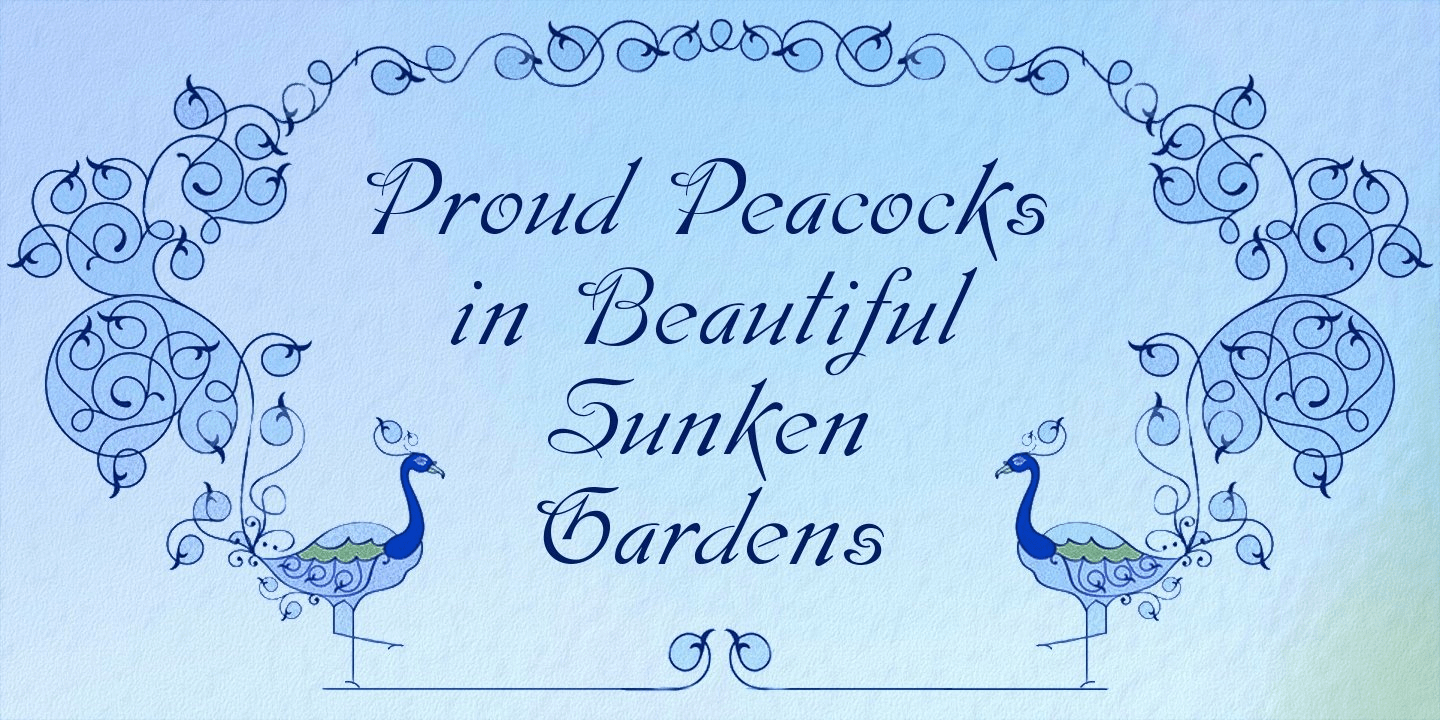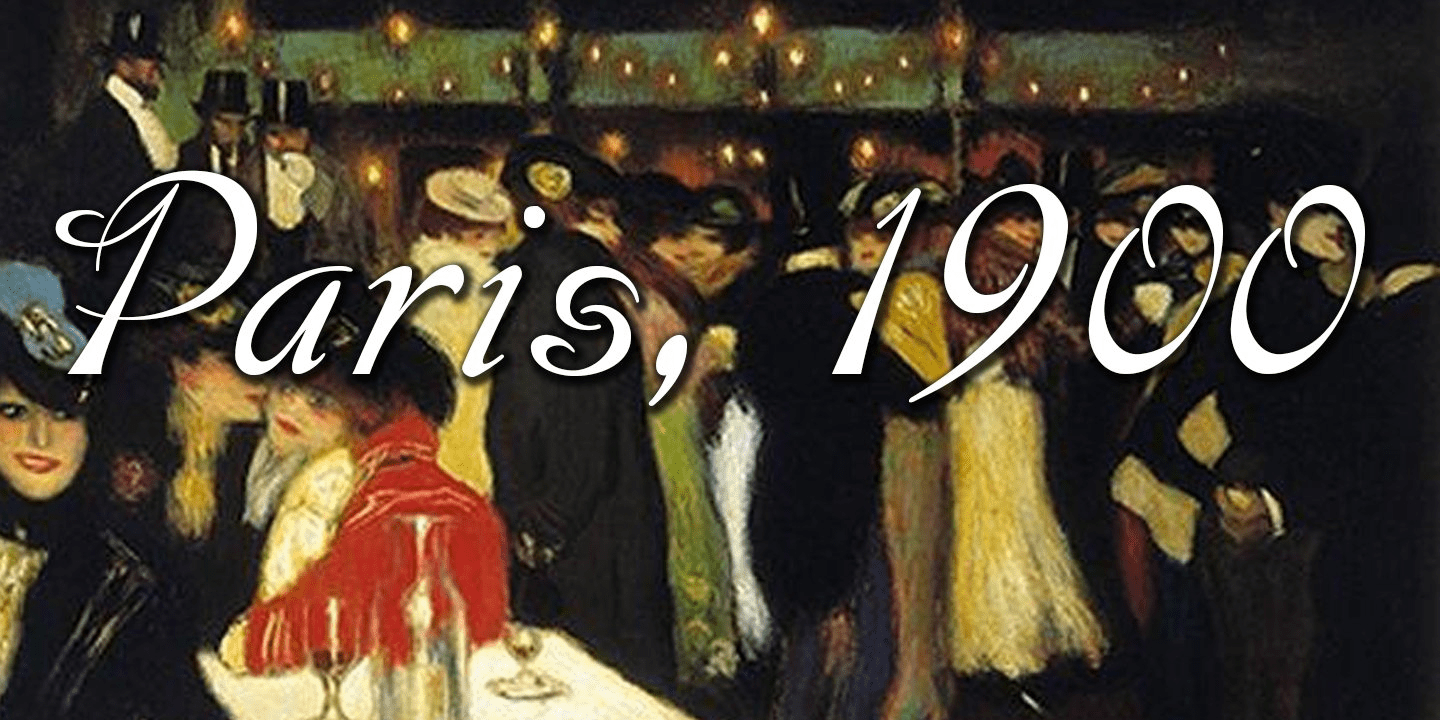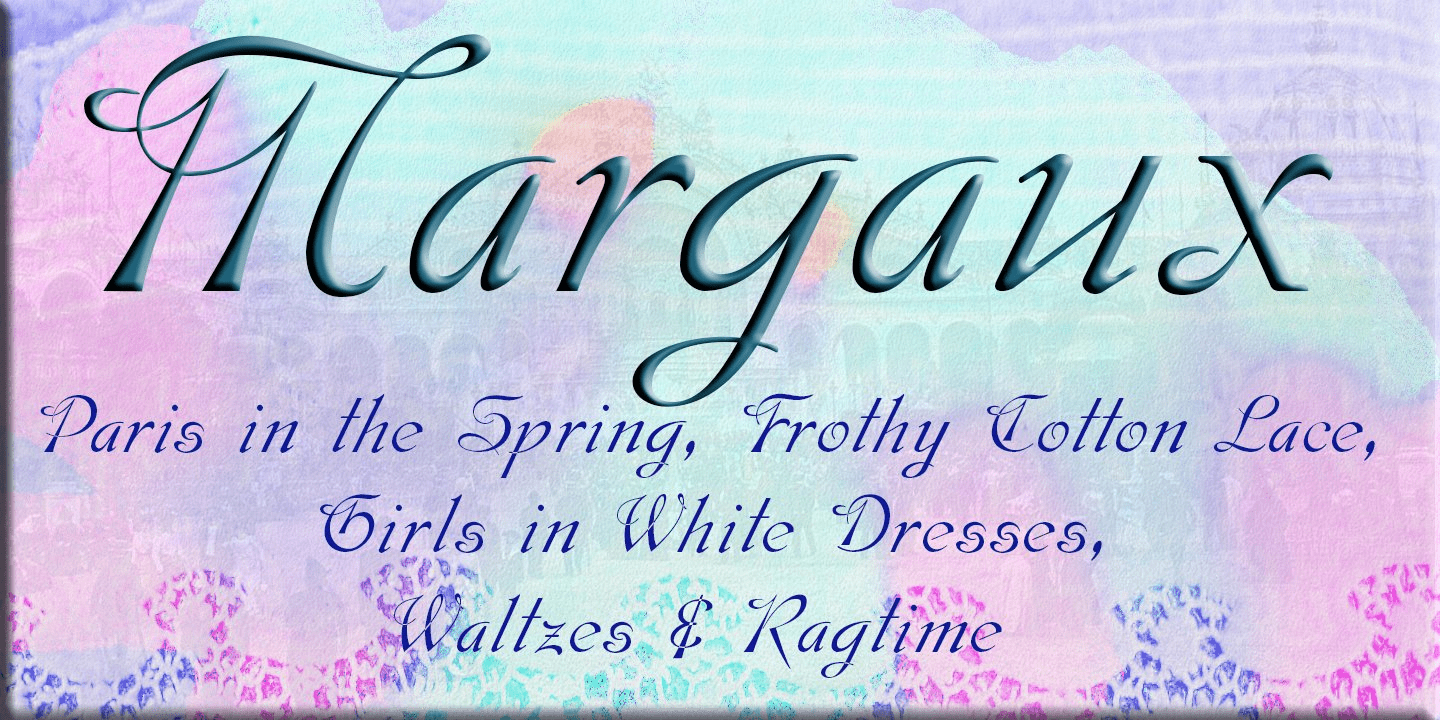
About Margaux
Margaux is an elegant, smooth, disciplined italic font, based on French fonts of the early 20th century. It evokes Paris in her heyday – culture, romance, and sophistication. Margaux is beautifully crafted, with simple, neat lower case characters, and…